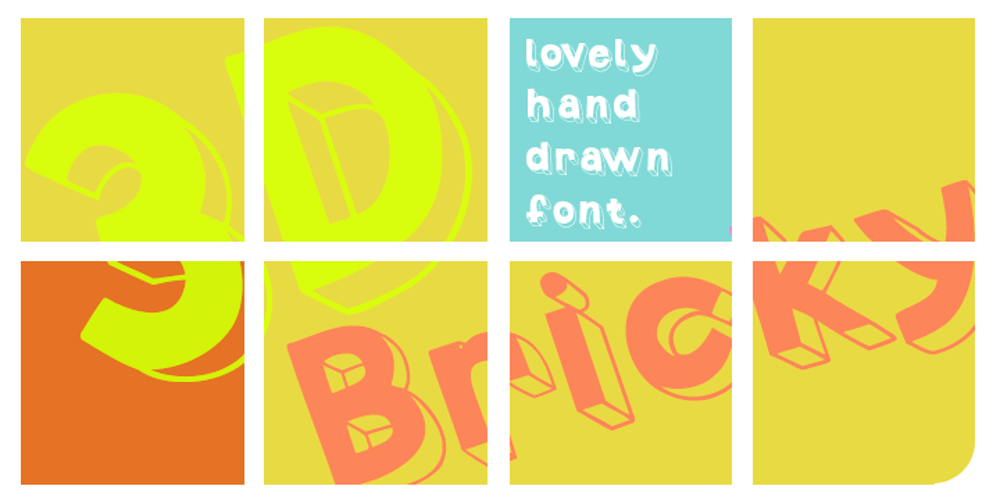
3D Blocky
3D Blocky font
3D Blocky Font Family was designed by Luke William Turvey, Natsuko Hayashida and published by Okaycat. 3D Blocky contains 8 styles and family package options. 3D Blocky is a hand-drawn 3-D font. Composed of friendly & fun letters, this font is sure to become a favorite for you. There is a sprinkling of dingbats scattered around the alternates, just there to make this font extra fun and useful . Check it out! 3D Blocky is extended, containing West European diacritics & ligatures, making it suitable for multilingual environments & publications.